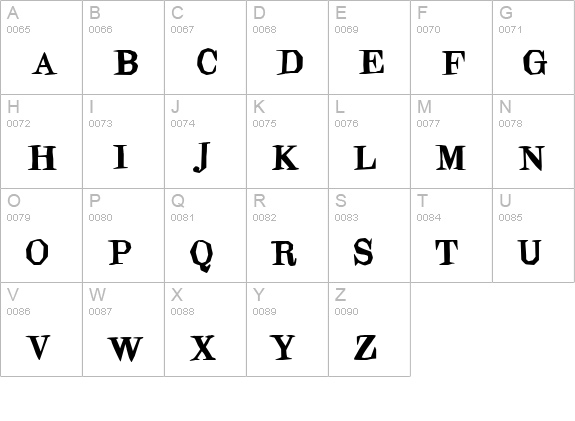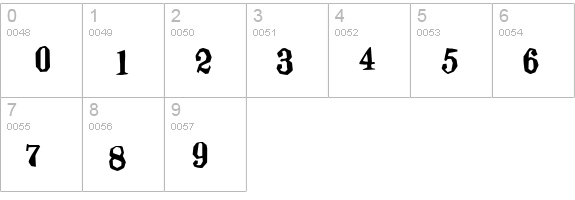
Blindfold Font Details
Blindfold font is a unique and eye-catching typeface that adds a touch of mystery and elegance to any design project. Its striking combination of bold lines and intricate details make it perfect for headlines, logos, and branding materials. The fluid curves and sharp angles of Blindfold font create a sense of sophistication and modernity, making it a versatile choice for a wide range of creative projects. What sets Blindfold font apart is not only its captivating design, but also the fact that it is available for free download at FontsMarket.com. This means that designers and creatives can easily access this stylish font without any cost, making it a valuable addition to any font collection. Whether you're working on a print design, website, or any other project that requires a touch of elegance, Blindfold font is sure to make a statement and leave a lasting impression. Download it for free today and elevate your design work to the next level.